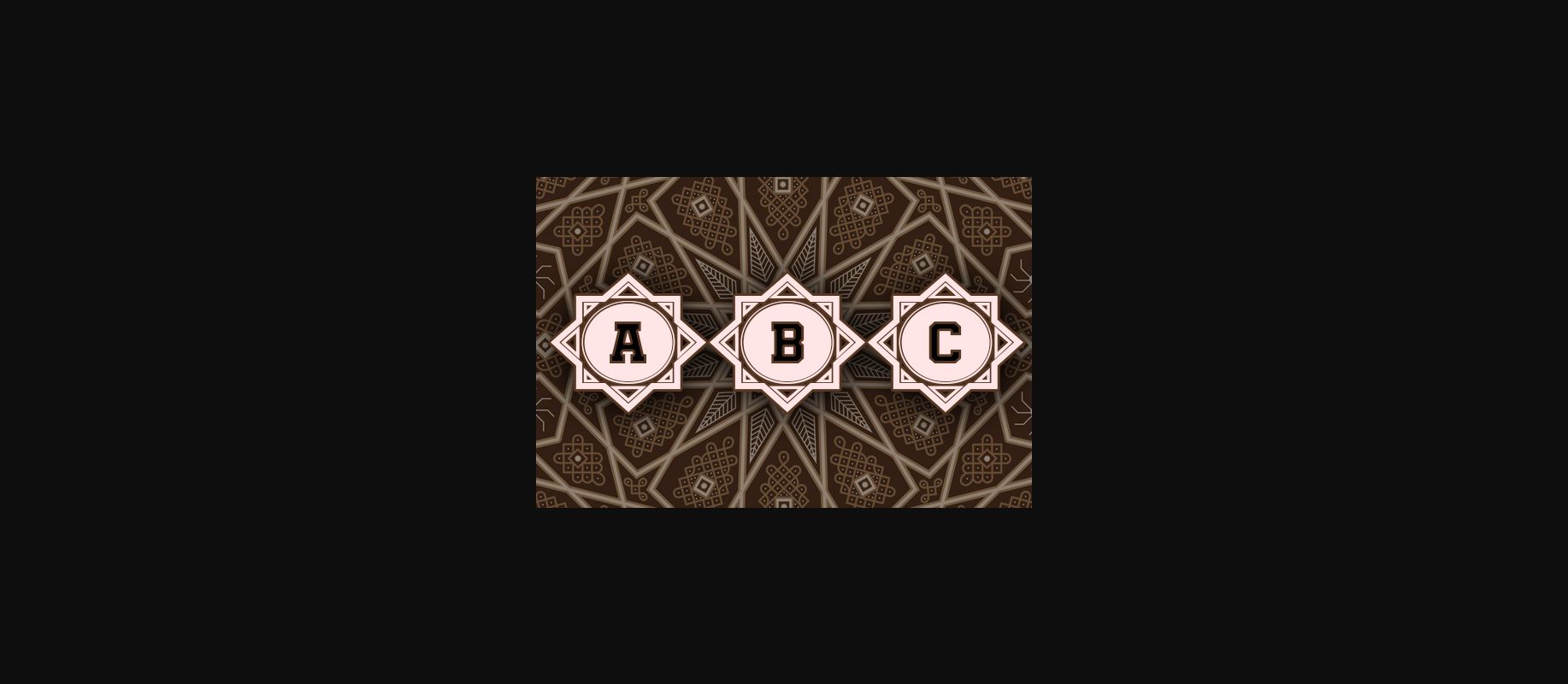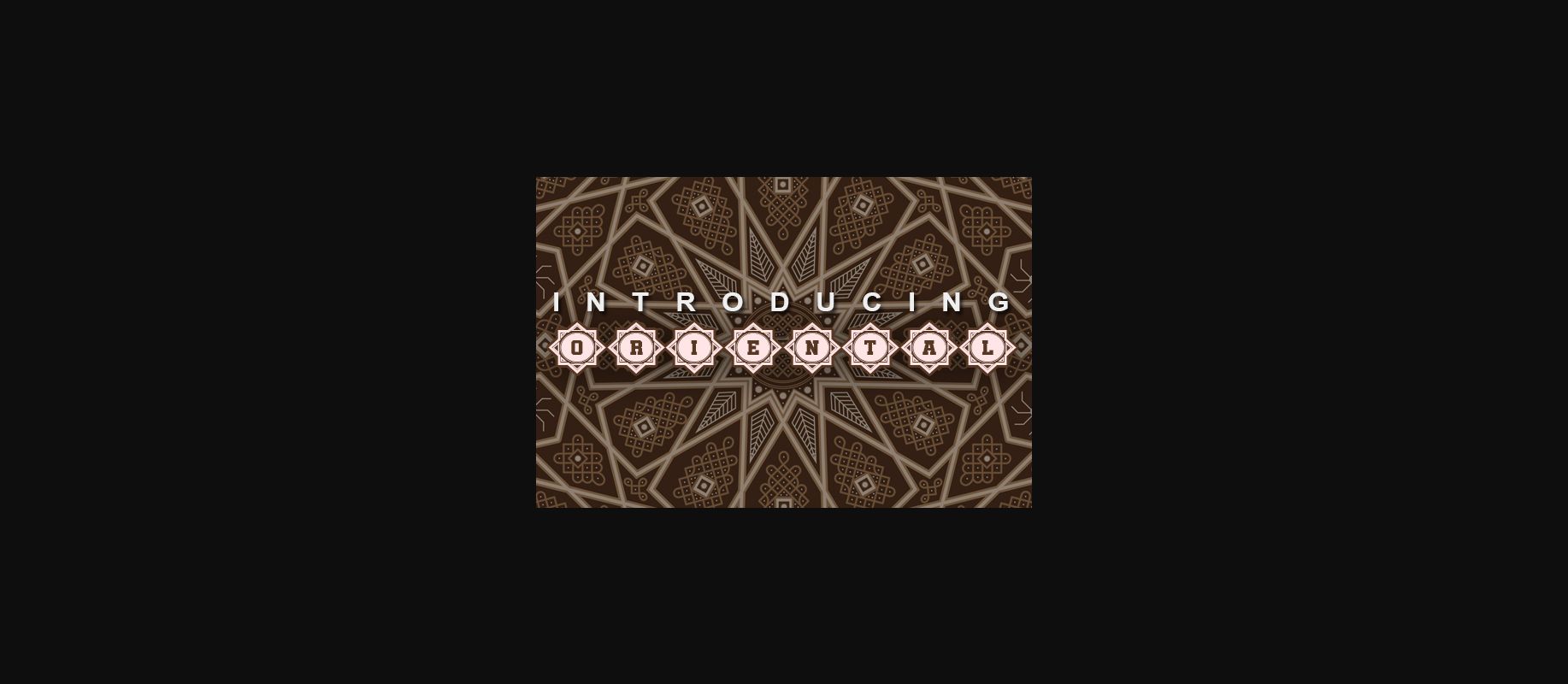
About Oriental Font
Oriental is a beautiful decorative font. It comes in 6 font styles. Use it for any project that requires a personalized look and feel!